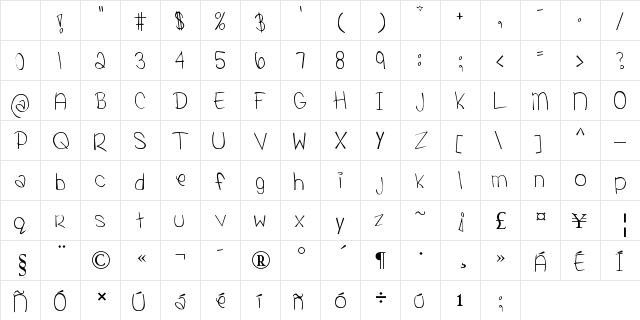
Complete Yummah Strawberriez Regular glyph index. Displaying only characters natively supported by Yummah Strawberriez Regular font.
Yummah Strawberriez is a composed and adaptable typeface that performs quietly and consistently across a wide range of design contexts.